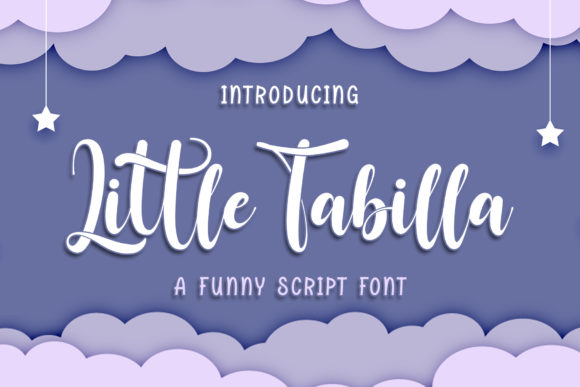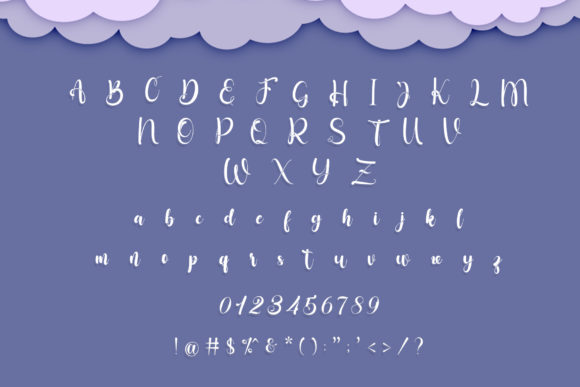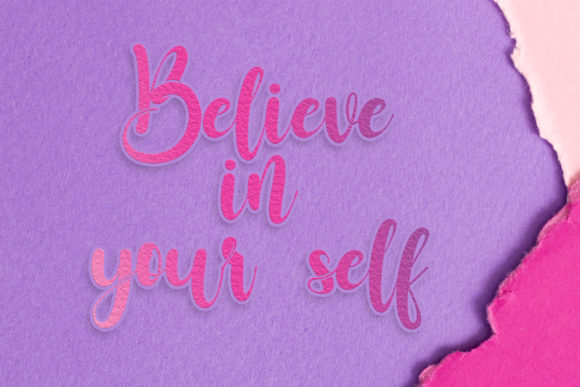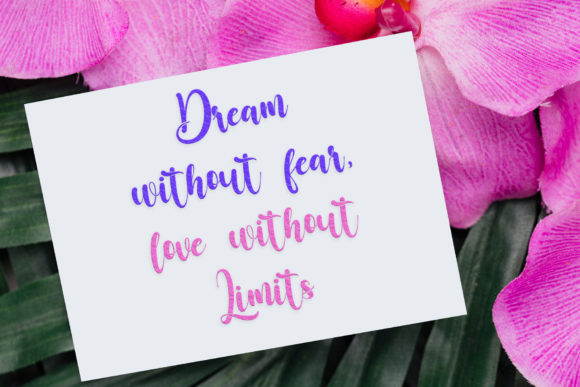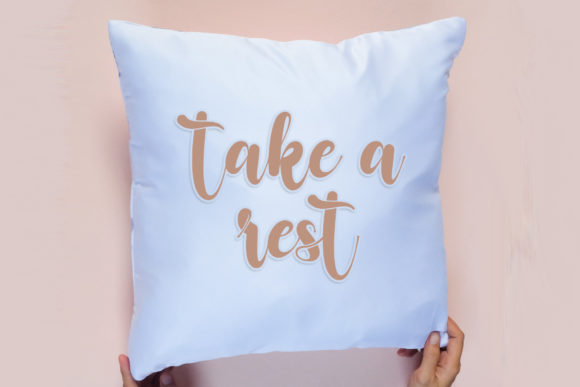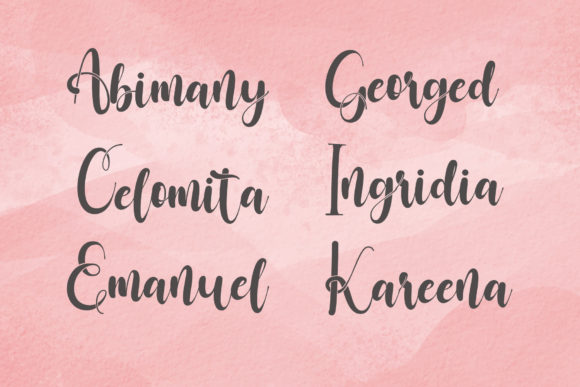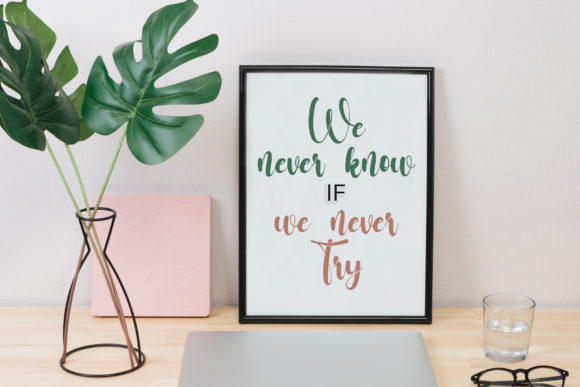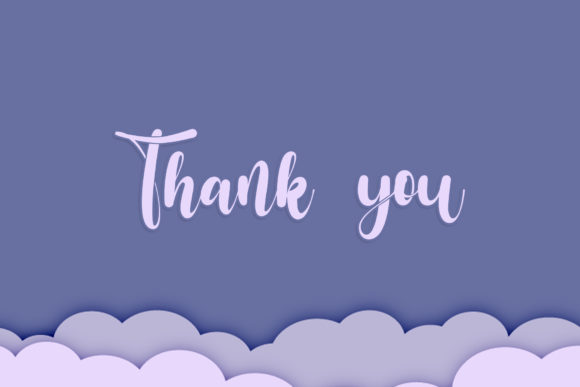
Little Tabilla Font
About Little Tabilla Font
Little Tabilla is a modern and cute handwritten font. It has a playful feel that will turn any crafting idea into a true standout.